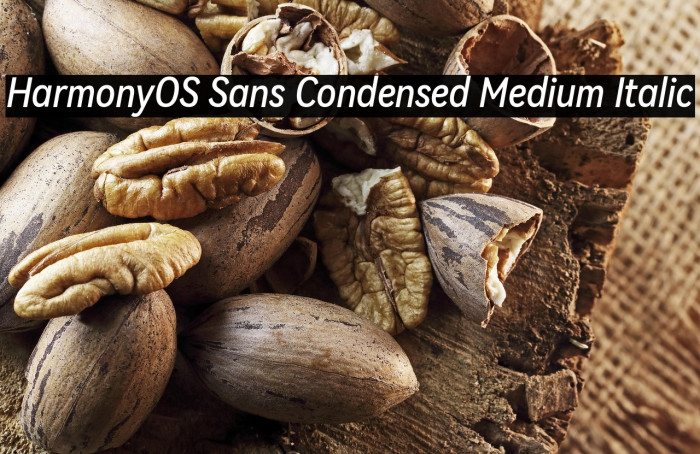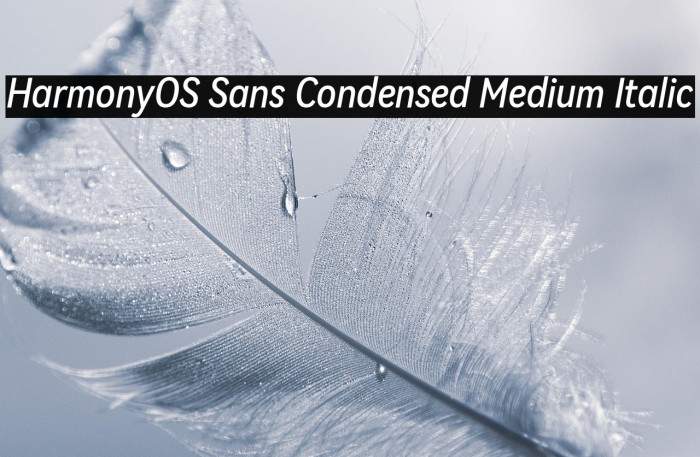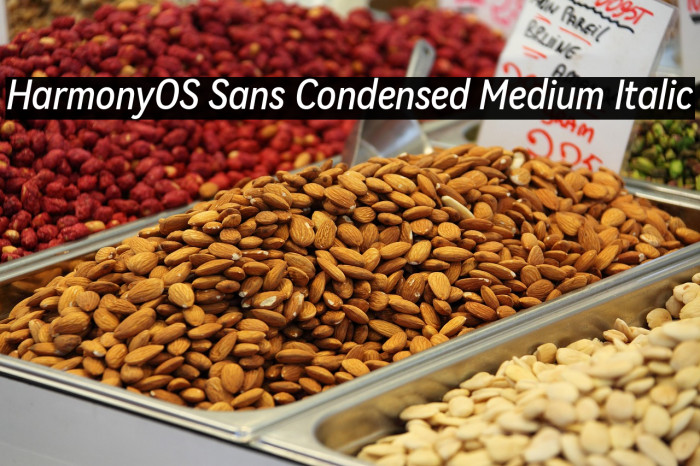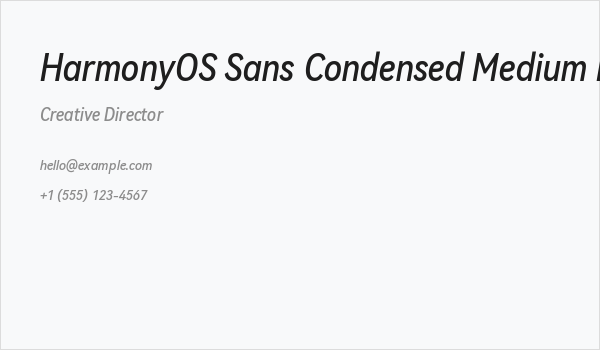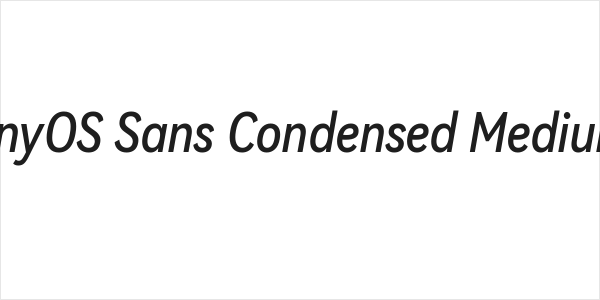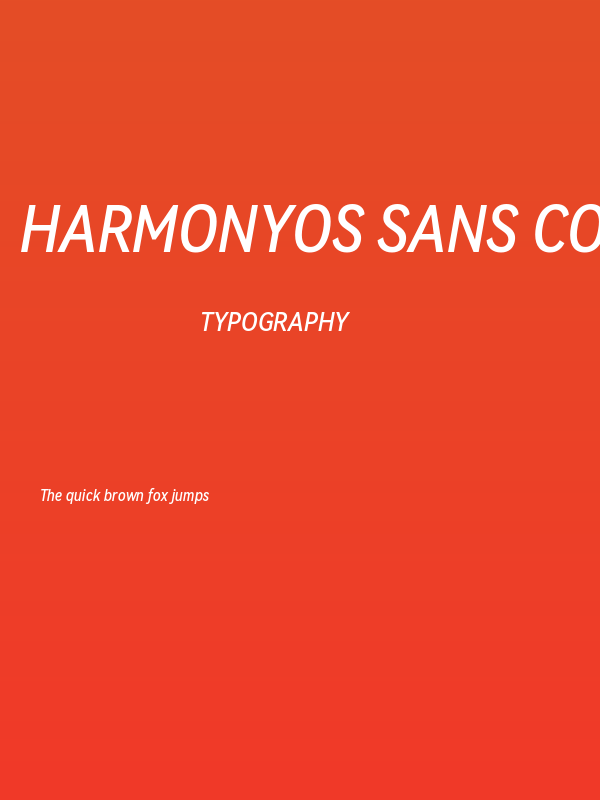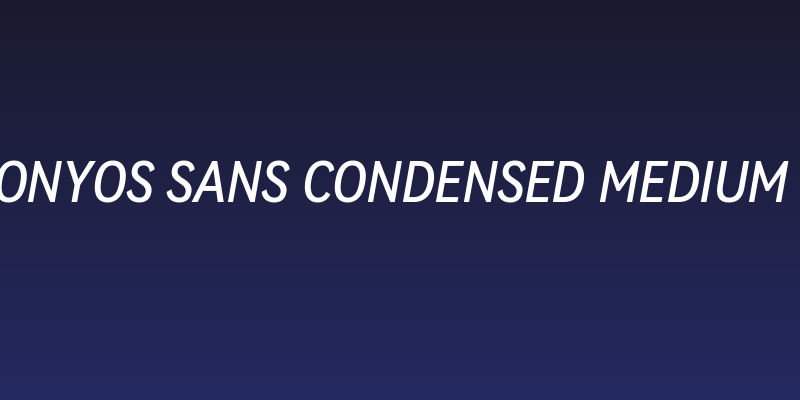
HarmonyOS Sans Condensed Medium Italic Font
HarmonyOS Sans Condensed Medium Italic Description
This font presents a sleek and modern aesthetic with its condensed and italicized form. The characters are well-defined with a medium weight, offering a balanced appearance that is both professional and approachable. The sans-serif style ensures clarity and readability, making it suitable for various applications. The italic slant adds a dynamic and forward-moving feel, enhancing its contemporary look. The spacing between characters is tight, which contributes to its compact and efficient design. This font is versatile, ideal for both digital and print media, and can effectively convey messages in a clear and stylish manner.
| Proposed Projects | Ideal for branding, advertising, user interfaces, and editorial design. |